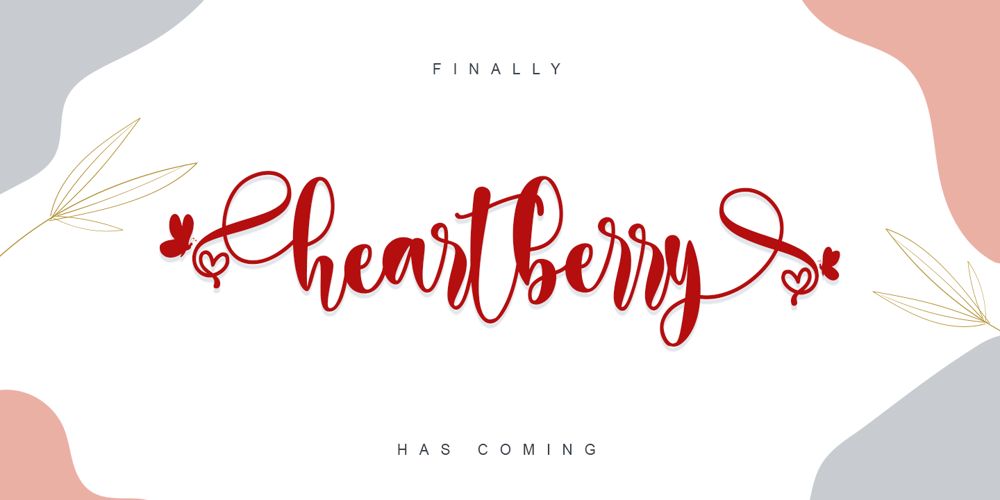
Heartberry Font Family was designed by Thomas Aradea and published by Letterara. Heartberry contains 2 styles and family package options. heartberry is a lovely romantic script font with lots of authenticities!. It has beautiful and well-balanced characters and as a result, it matches a wide pool of designs. It will turn any design project into a true stand-out. Add it to your most creative ideas and notice how it makes them come alive! This font is PUA encoded which means you can access all of the amazing glyphs and swashes with ease! It also features a wealth of special features including alternate glyphs and ligatures.